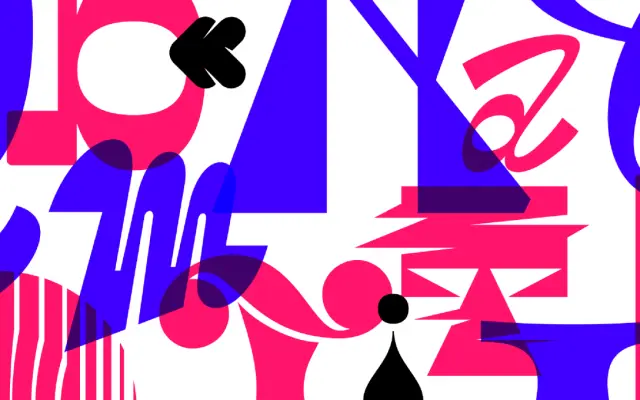
36 Days
Fontfabric · Plamen Motev, Mirela Belova, Nikolay Petroussenko, Laurene Girbal, Stan Partalev · 2019
A free single-weight display font from Fontfabric, born from the 36 Days of Type challenge and drawing on optical art, blackletter and sign painting traditions.
Created by a team at Fontfabric and released as a free download in 2019, the design pulls from a wide range of visual sources including the optical art of Victor Vasarely, Penrose's impossible objects, copperplate script, blackletter and Eastern dry brush technique. It ships as a single Regular style with extended Latin support and OpenType features, aimed at posters, social media graphics and experimental headline work. The eclectic reference points give it a handcrafted, one-off quality that suits illustrative and editorial contexts over sustained reading.
A single-weight experimental display font drawing on optical art, copperplate, blackletter and sign painting traditions, designed purely for expressive headline use rather than text setting.